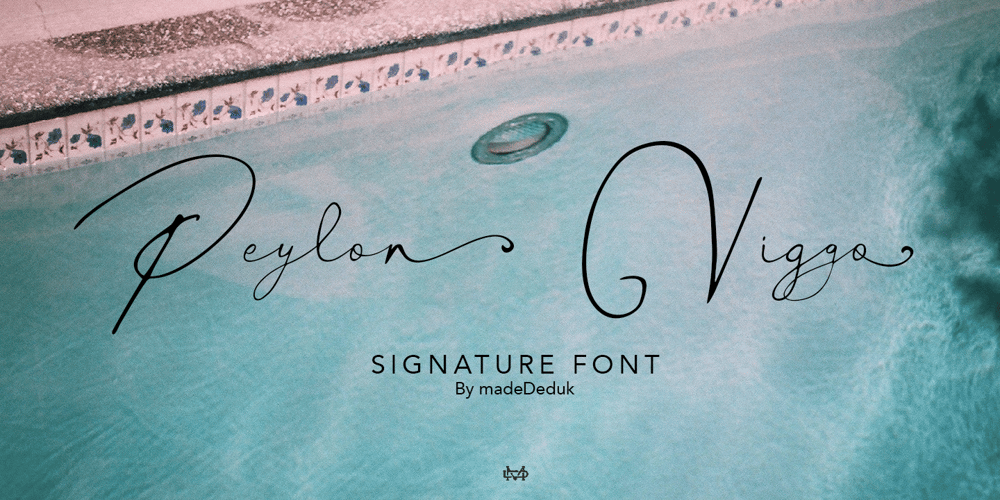
Peylon Viggo Signature Font Family was designed by madededuk and published by madeDeduk. Peylon Viggo Signature contains 1 styles and family package options. Really excited to introduce Peylon Viggo is gorgeous handmade signature font. Peylon Viggo signature includes alternative and ligatures to make everything look natural handmade signature.Included: Uppercase Lowercase Number & Symbol International Glyphs Multilingual Support Ligature Alternative If you need anything else just shoot me on email at: dedukvic@gmail.comHope you enjoy it.